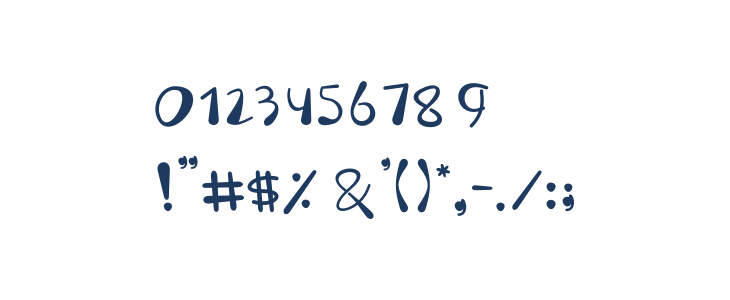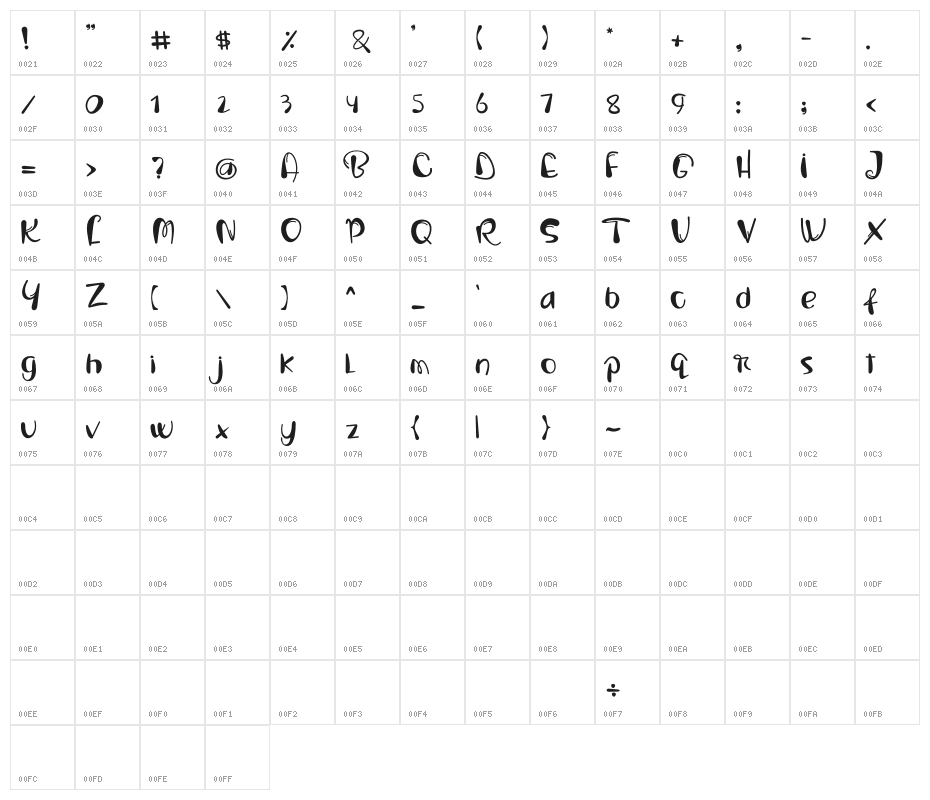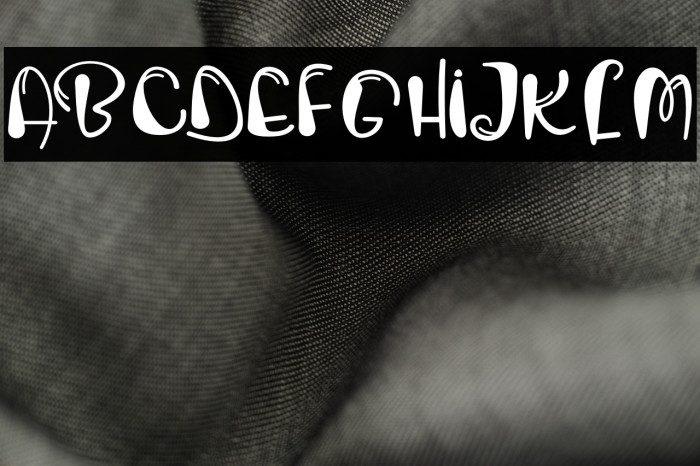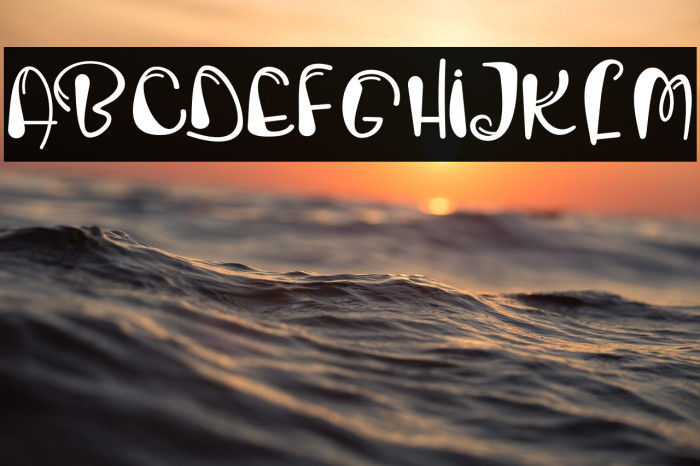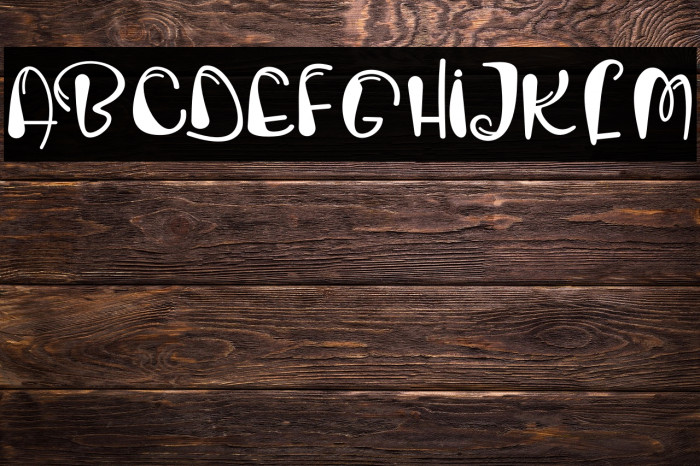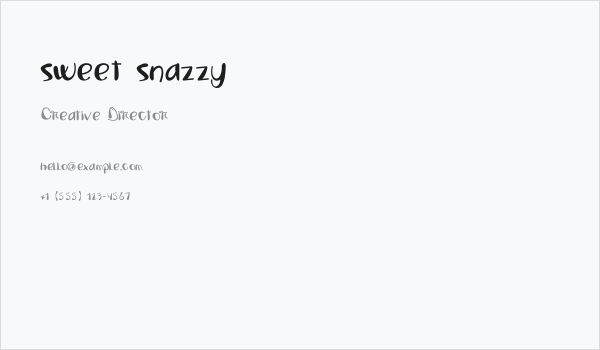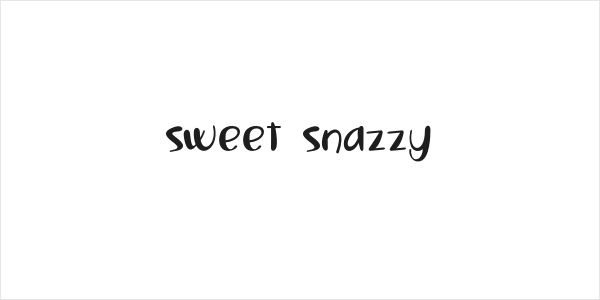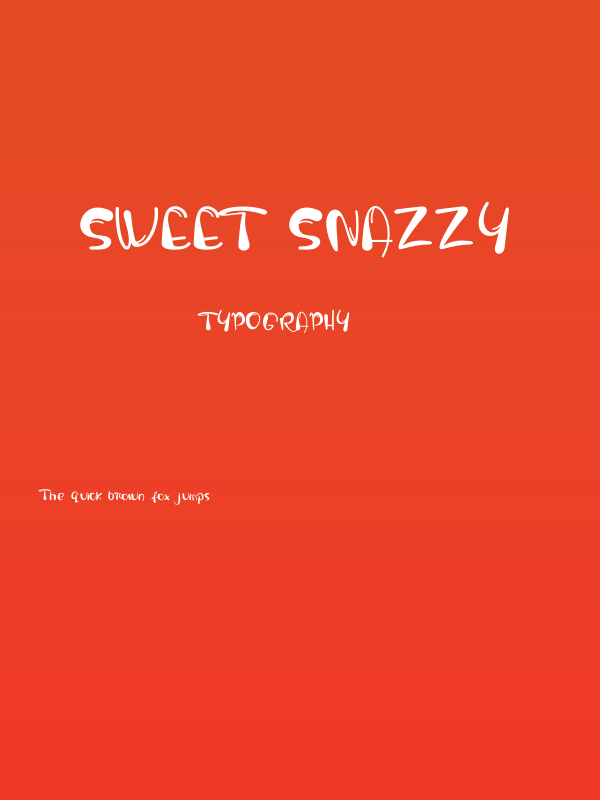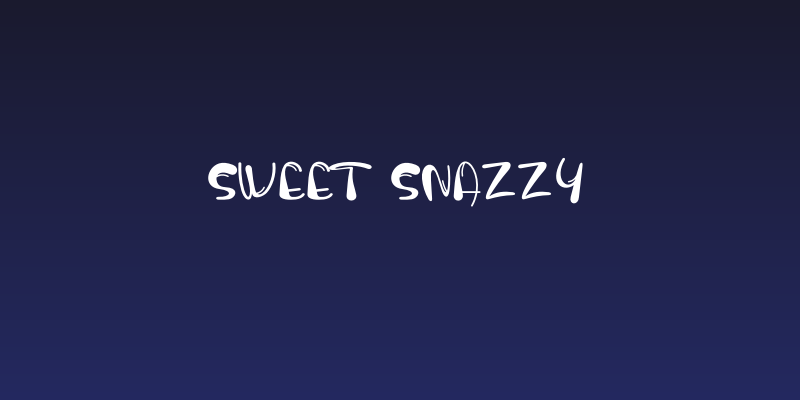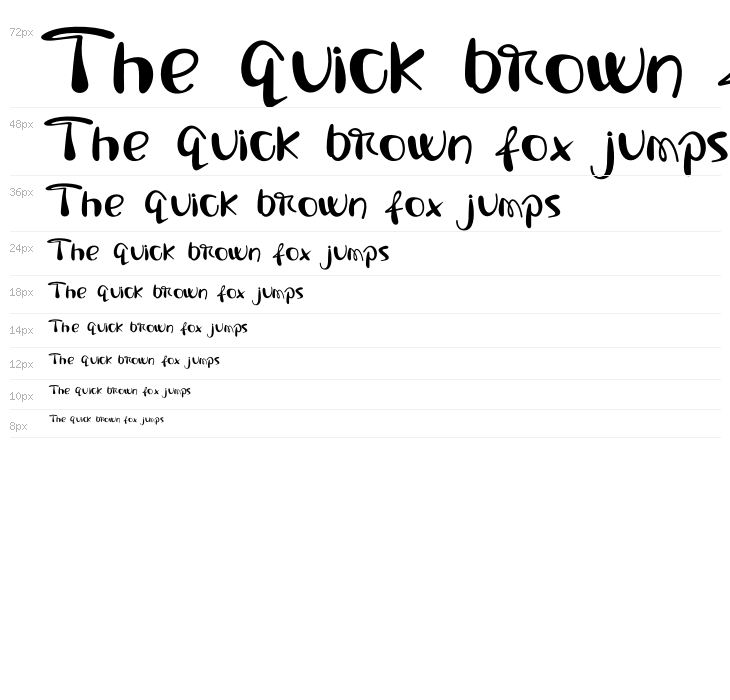
sweet snazzy Font
sweet snazzy Description
This playful and dynamic font features a whimsical, handwritten style with a lively and energetic appearance. The characters are bold and slightly irregular, giving them a unique and artistic flair. The strokes are thick and varied, adding a sense of movement and personality to each letter. The uppercase and lowercase letters maintain a consistent style, while the numbers and special characters complement the overall design. This font is perfect for projects that require a fun and informal touch, making it ideal for creative and artistic endeavors.